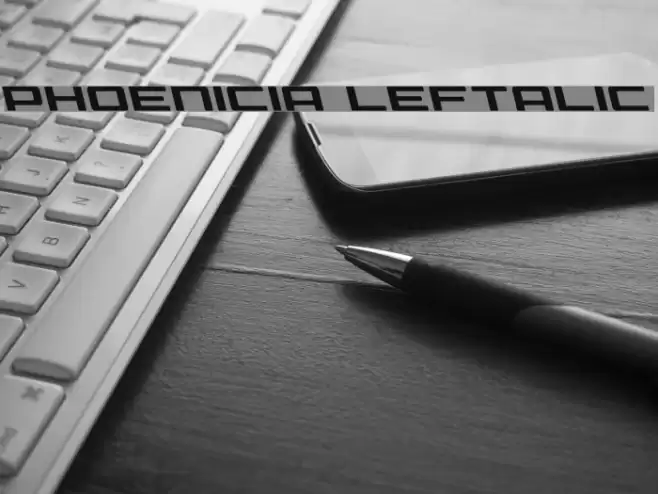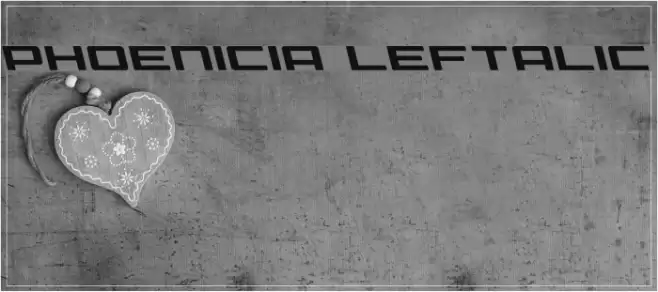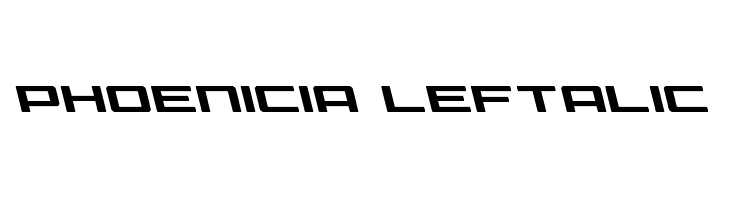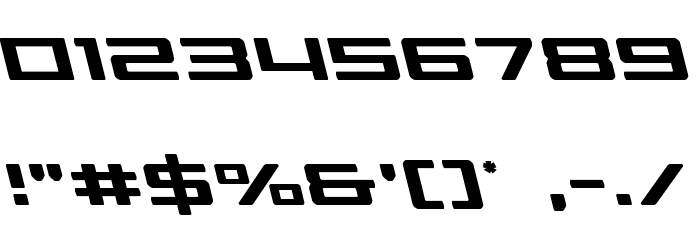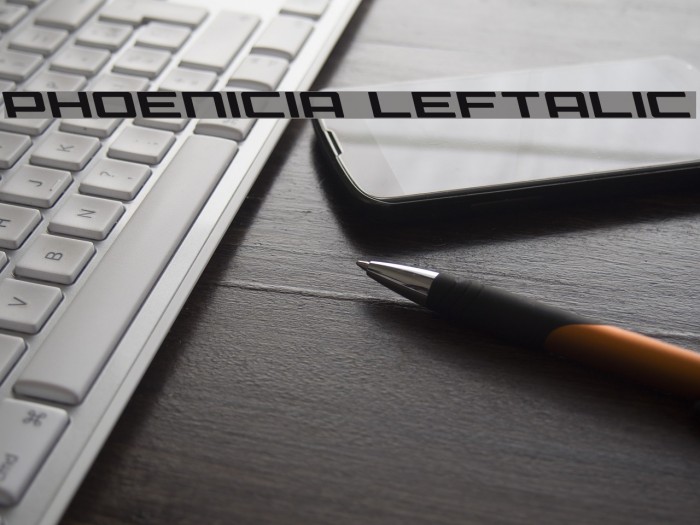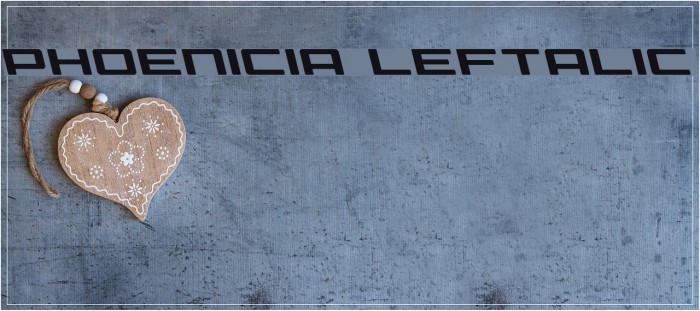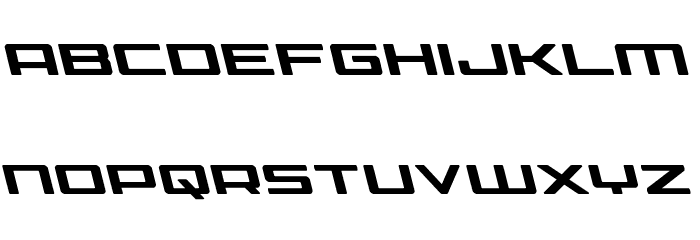
Phoenicia Leftalic Font
Phoenicia Leftalic Description
This font presents a bold and futuristic design with a distinct geometric structure. The characters are slightly slanted, giving a dynamic and forward-moving appearance. The angular cuts and sharp edges contribute to a modern and tech-inspired aesthetic. The uppercase and lowercase letters maintain a consistent style, with uniform stroke widths that add to its boldness. The numerals and special characters follow the same design principles, ensuring a cohesive look across all glyphs. This font's unique style makes it suitable for projects that require a strong visual impact.
A bold, futuristic font with geometric and angular design elements from Uncategorized fonts.
- Proposed Projects: Ideal for technology branding, sci-fi movie posters, video game titles, and modern advertising campaigns.